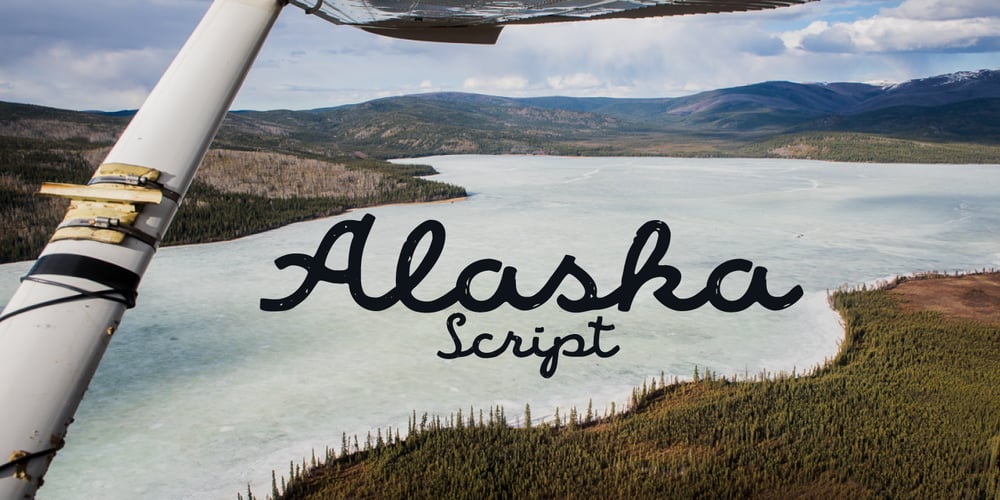
Alaska Script
Alaska Script font
Alaska Script Font Family was designed by Roland Hüse and published by Roland Hüse Design. Alaska Script contains 1 styles and family package options. Alaska Script is a fully cursive retro style, hand drawn script. It has contextual alternates for smooth connection of o-r, b-s etc. For best result please make sure you are using this font with softwares that supports open type features and you have these features turned on: * Contextual alternates and * Standard ligatures. Poster image credit: Patrik Banas